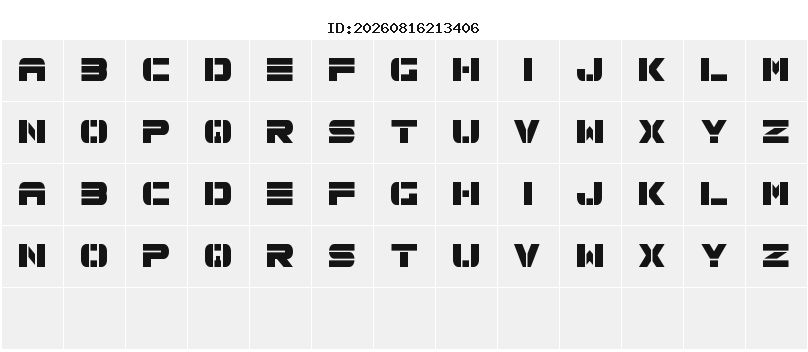
• Font Name: Spac3 tech
• Designer: Carlos Matteoli
About Spac3 tech.ttf
Spac3 tech.ttf is a modern, elegant sans-serif font designed for ultimate readability and visual harmony. Perfect for branding, headlines, web design, and print materials.